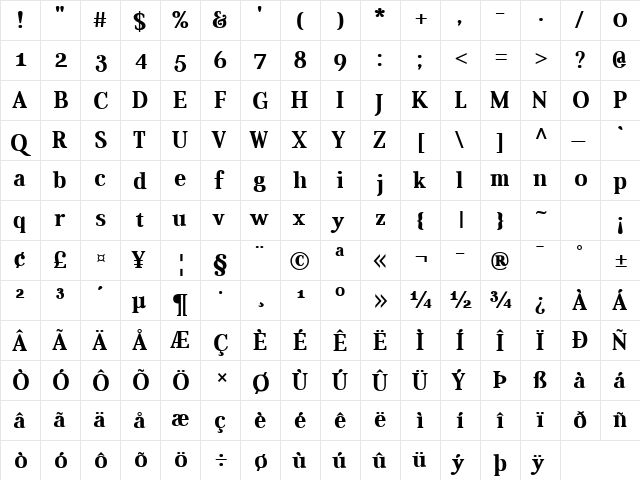
Aver Bold
| Designer | Lauren Thompson |
Design Context for Aver Typeface
Aver offers clean, dependable letterforms without strong stylistic allegiance, making it a practical choice for designers who need flexibility. The heavy weight commands attention and anchors typographic hierarchies.